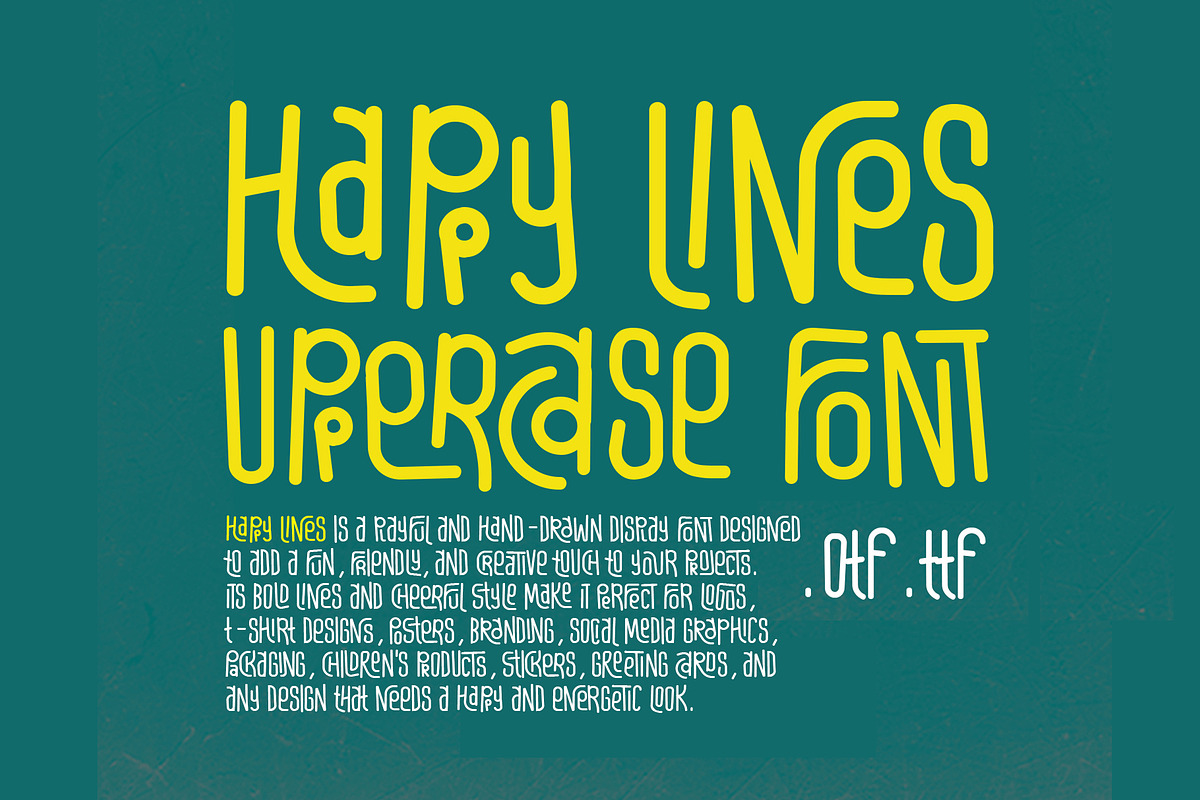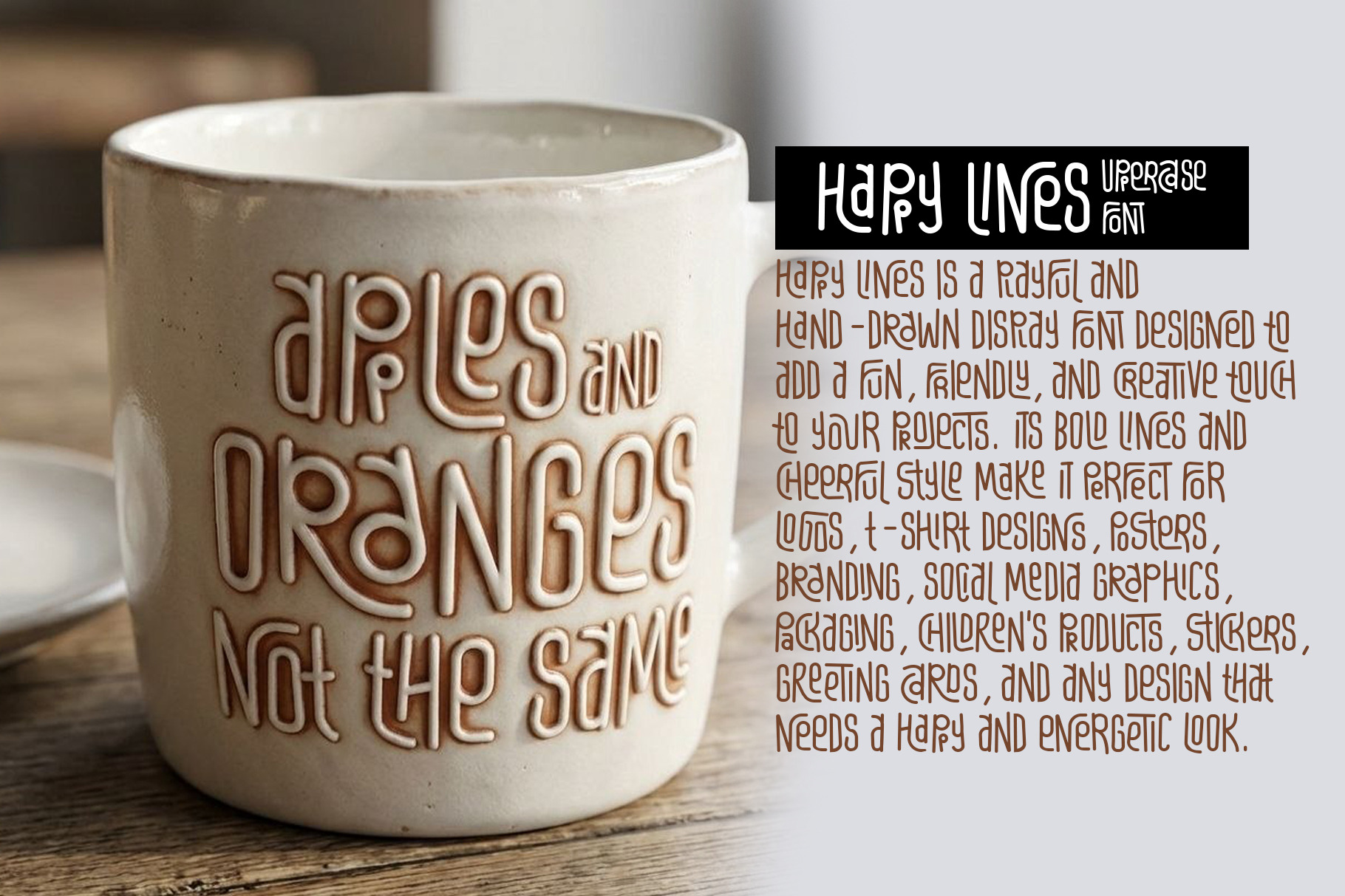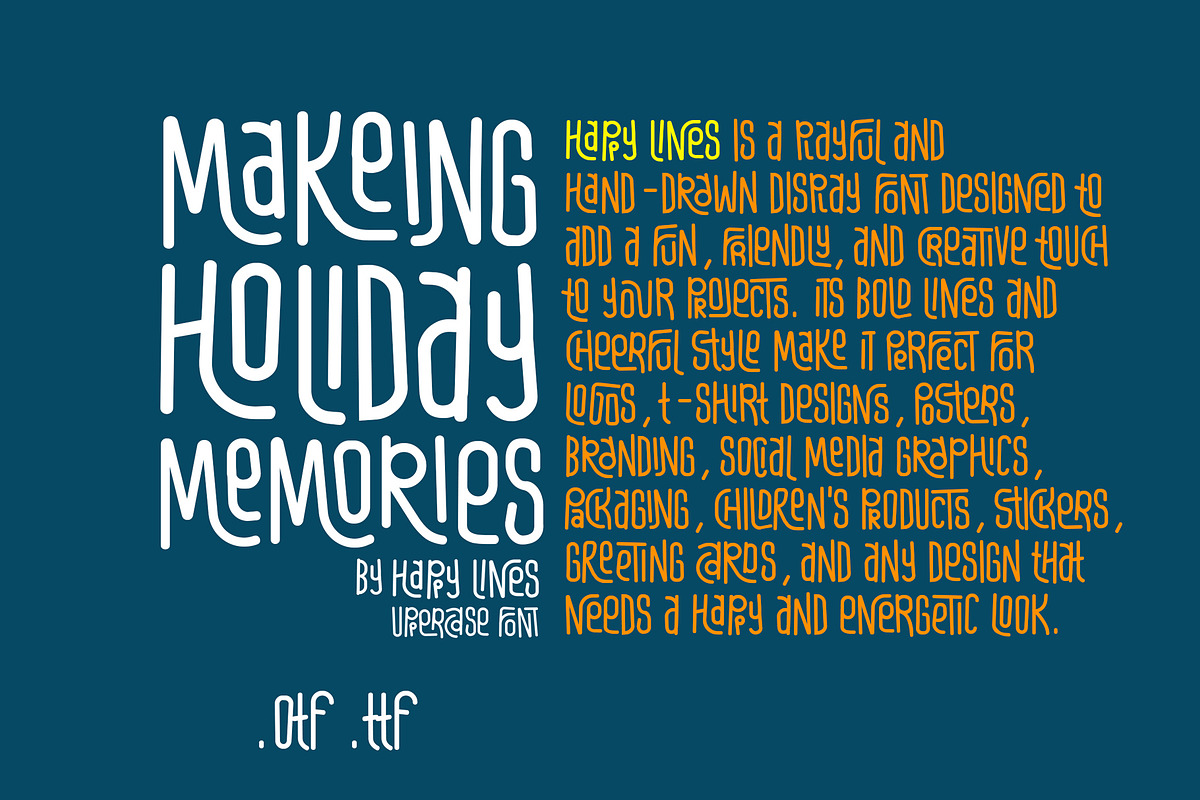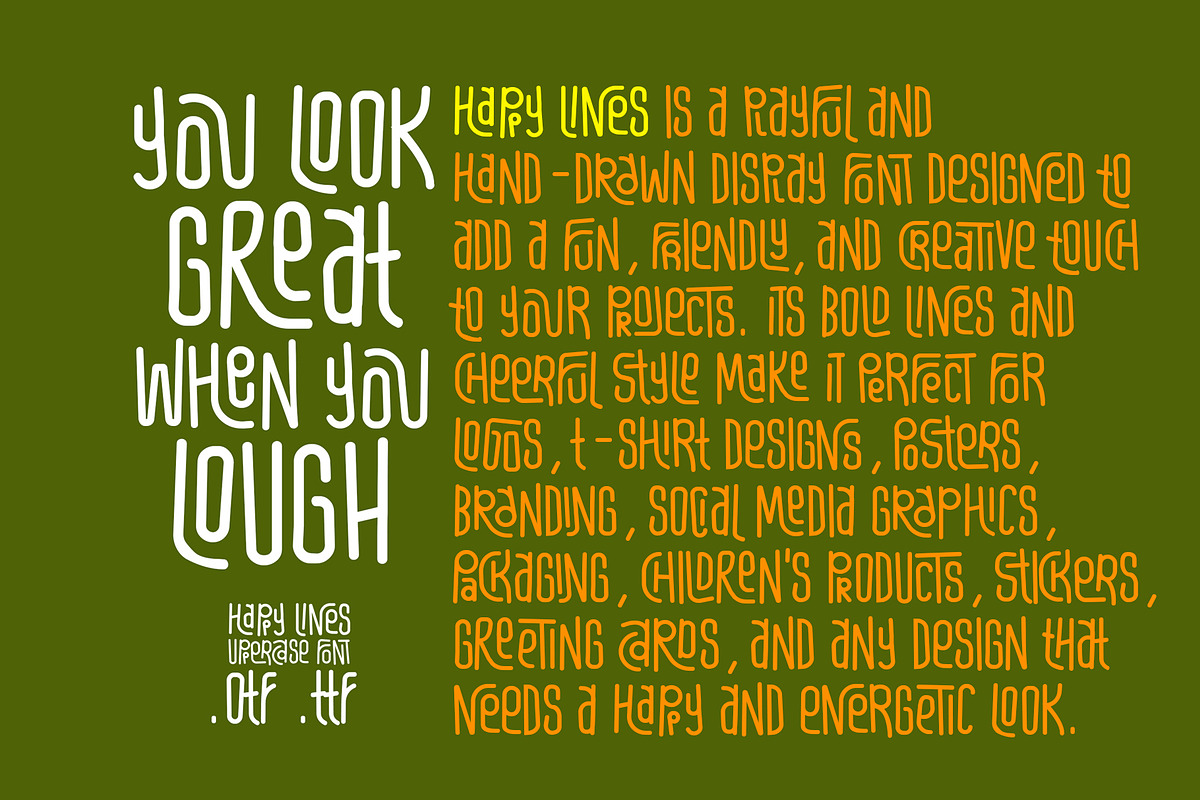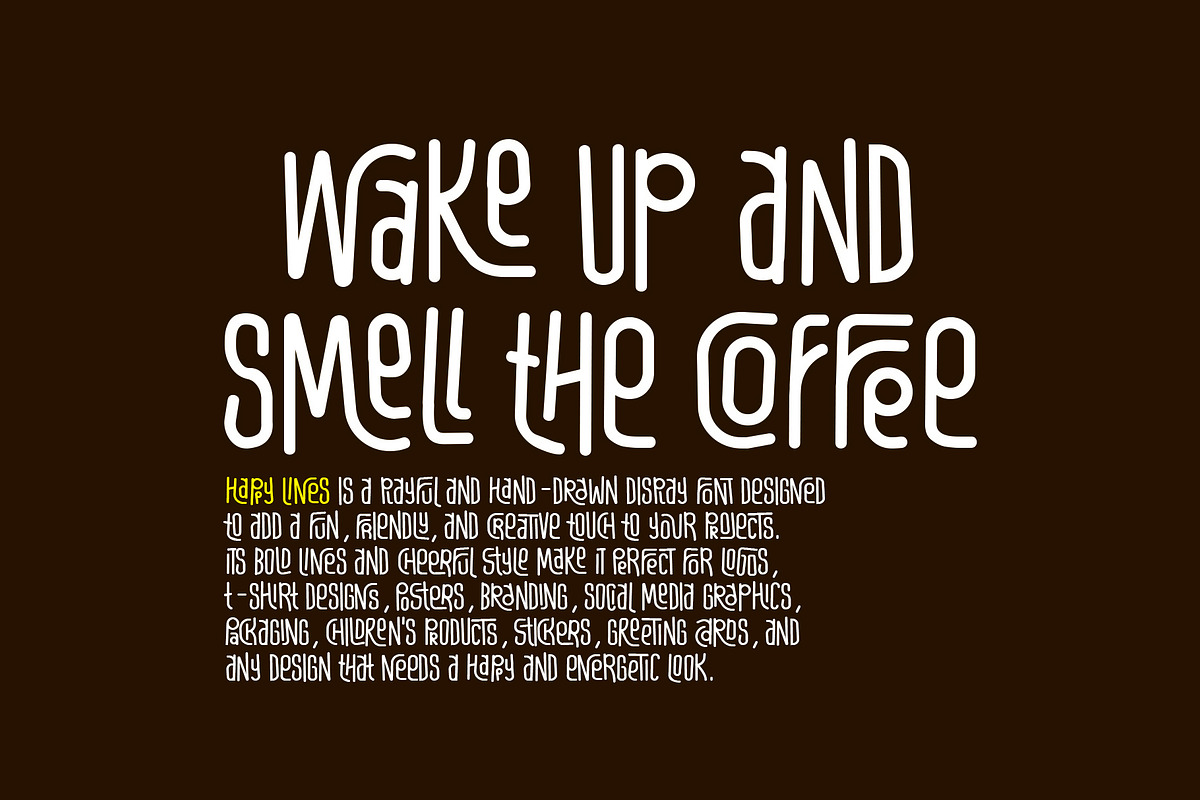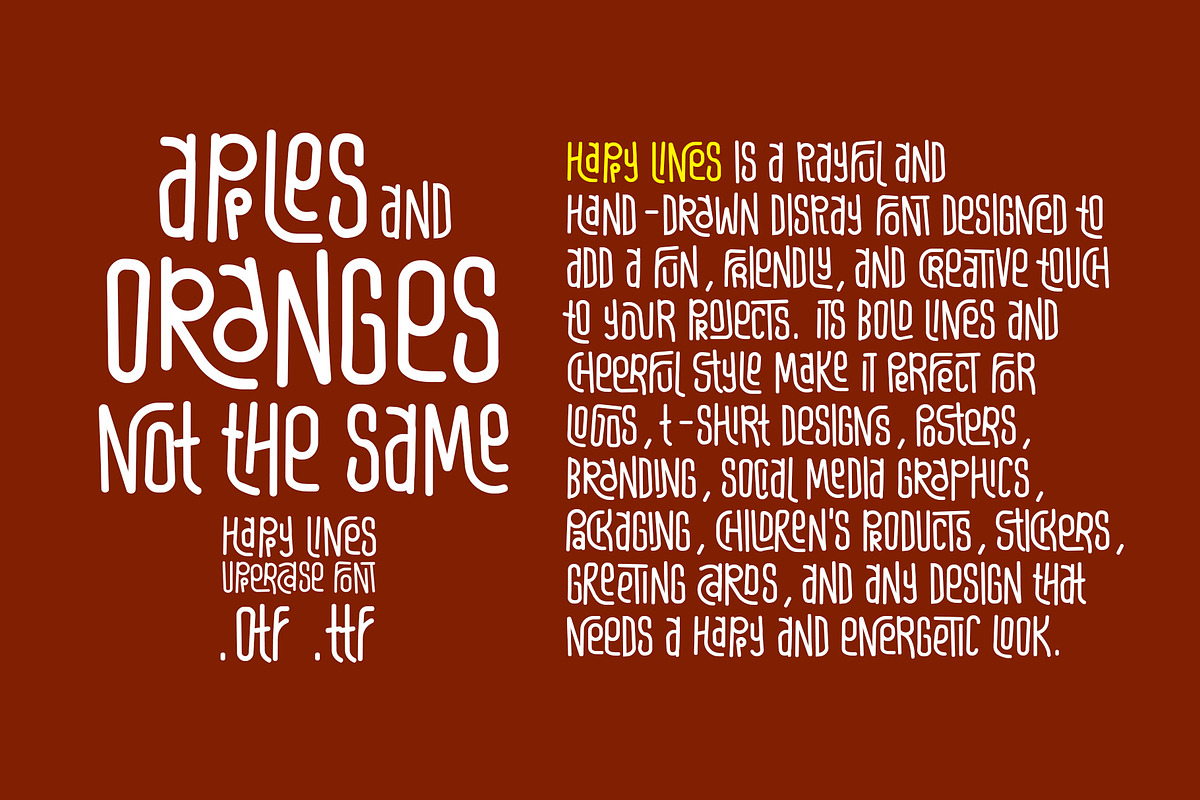
Happy Lines Uppercase Font
HAPPY LINES FONT
IMPORTANT: THIS FONT SUPPORTS UPPERCASE LETTERS ONLY.
HAPPY LINES IS A PLAYFUL AND HAND-DRAWN DISPLAY FONT DESIGNED TO ADD A FUN, FRIENDLY, AND CREATIVE TOUCH TO YOUR PROJECTS. ITS BOLD LINES AND CHEERFUL STYLE MAKE IT PERFECT FOR LOGOS, T-SHIRT DESIGNS, POSTERS, BRANDING, SOCIAL MEDIA GRAPHICS, PACKAGING, CHILDREN'S PRODUCTS, STICKERS, GREETING CARDS, AND ANY DESIGN THAT NEEDS A HAPPY AND ENERGETIC LOOK.